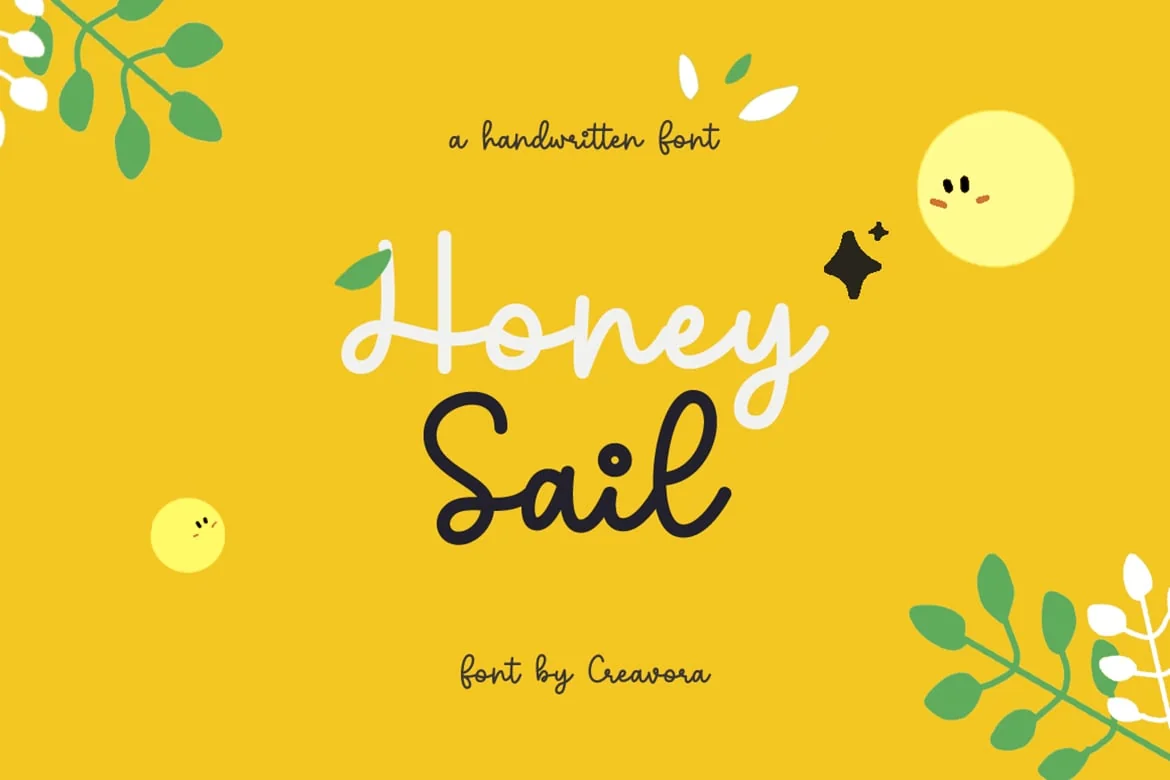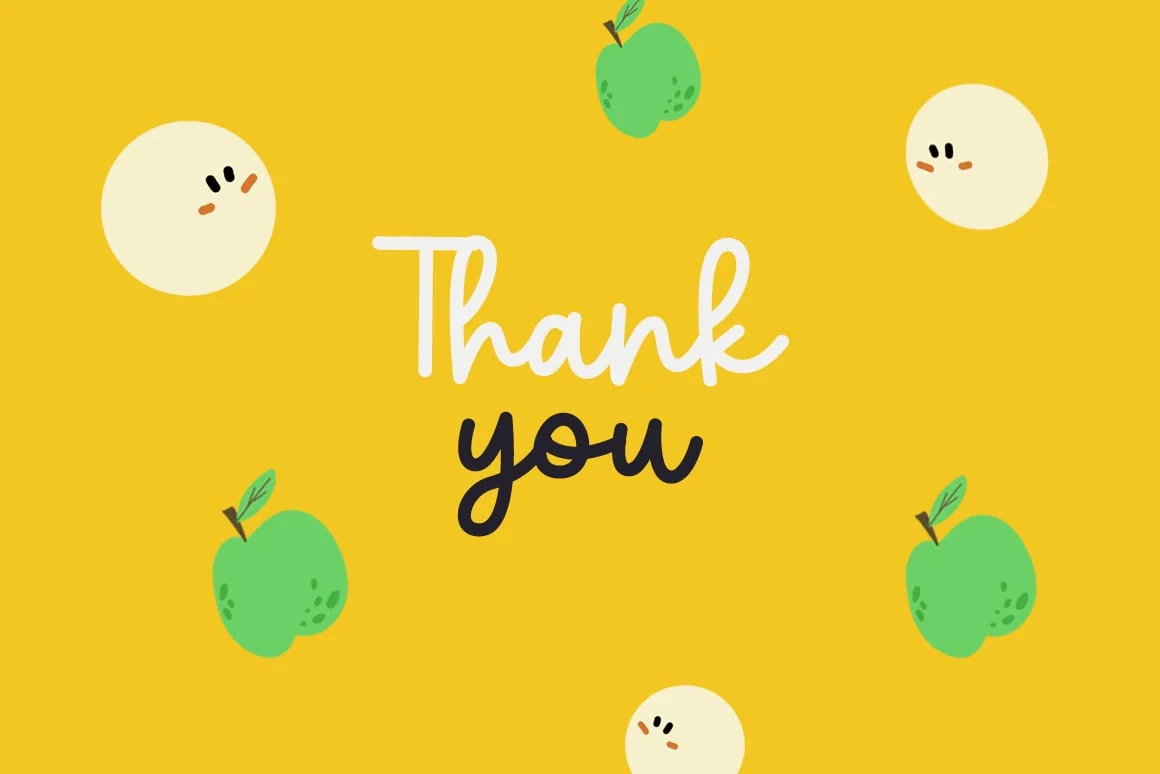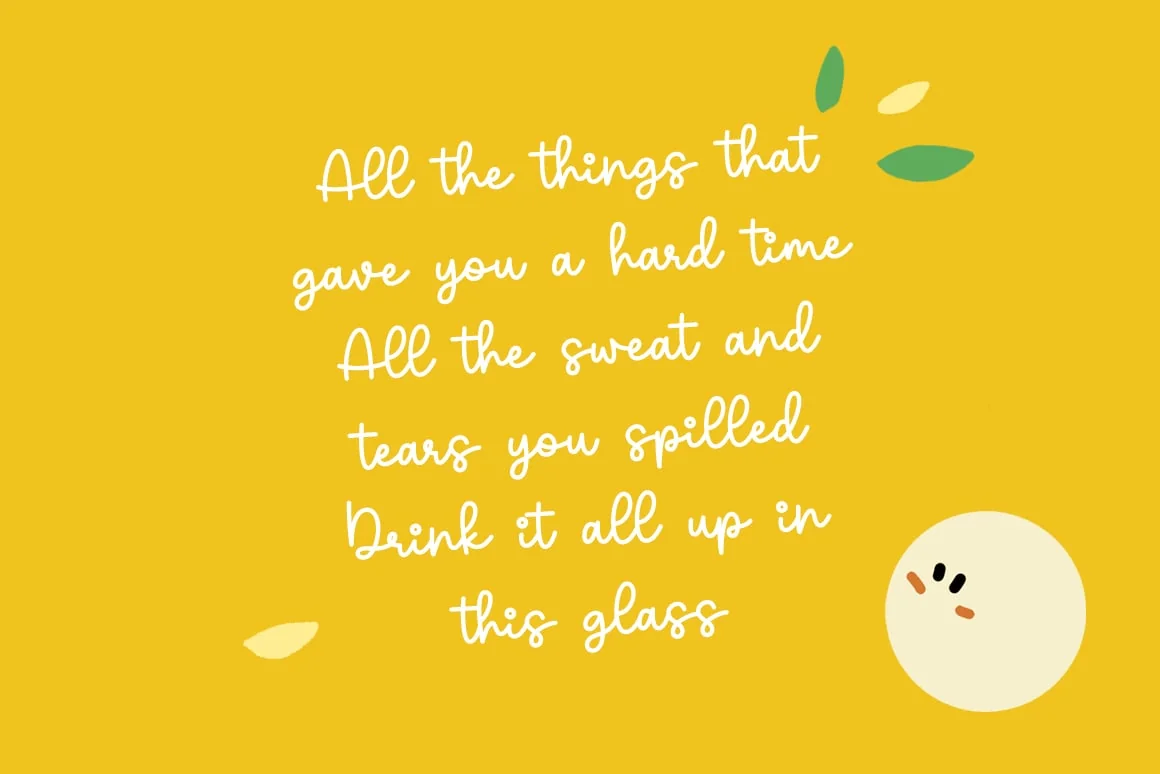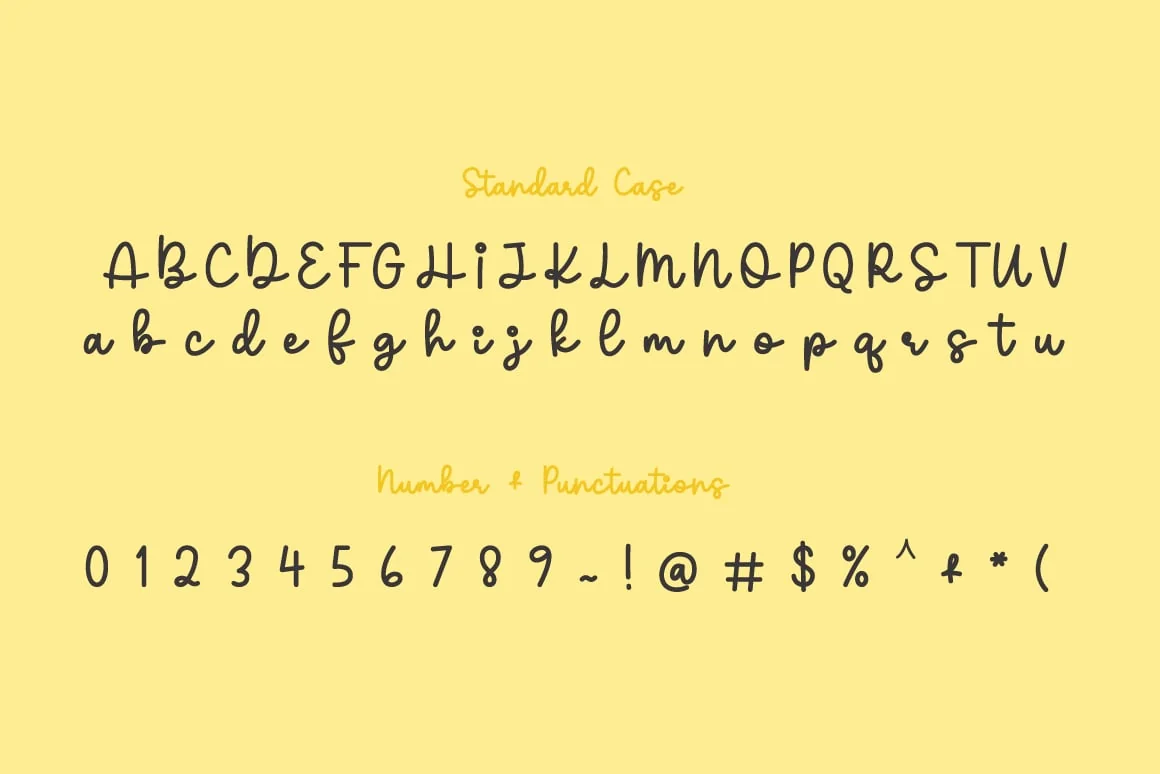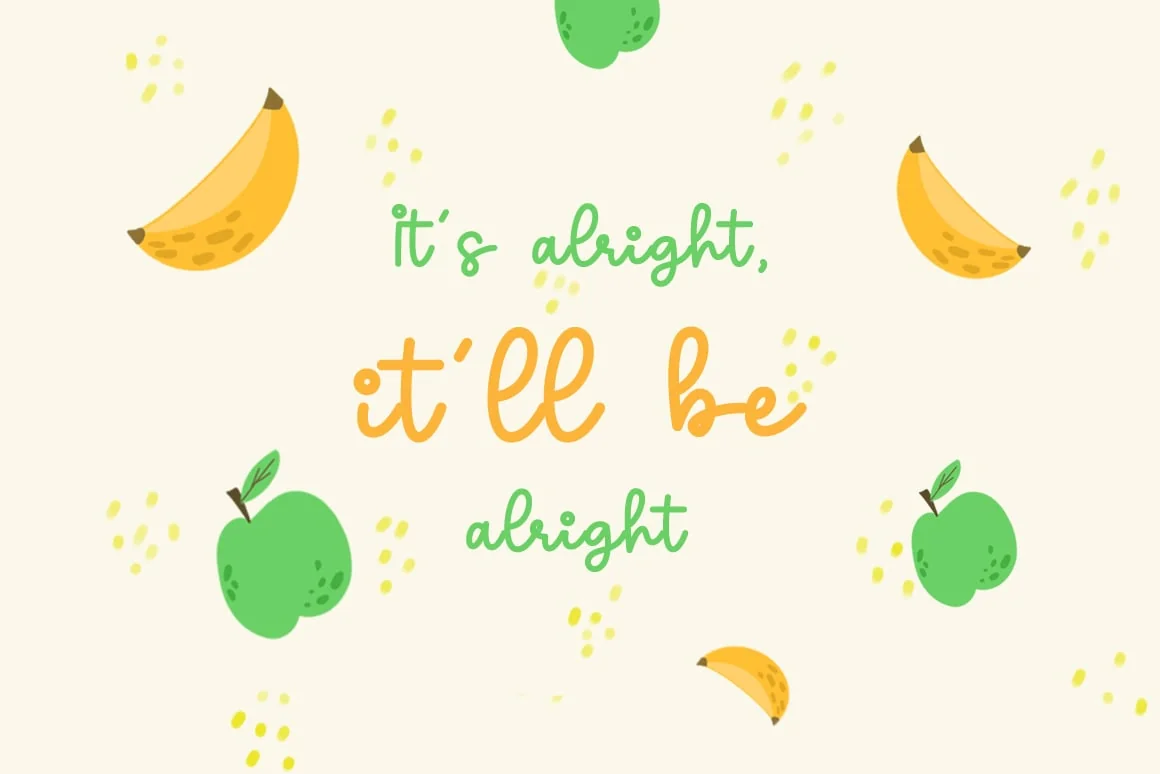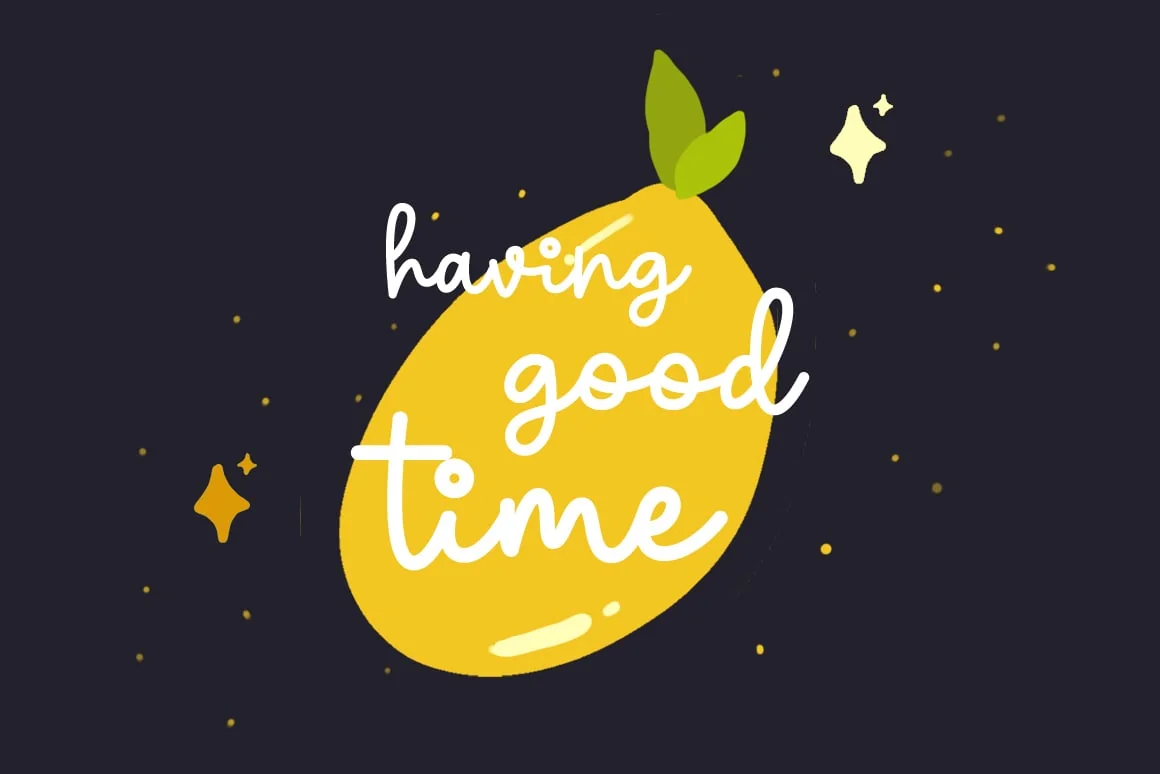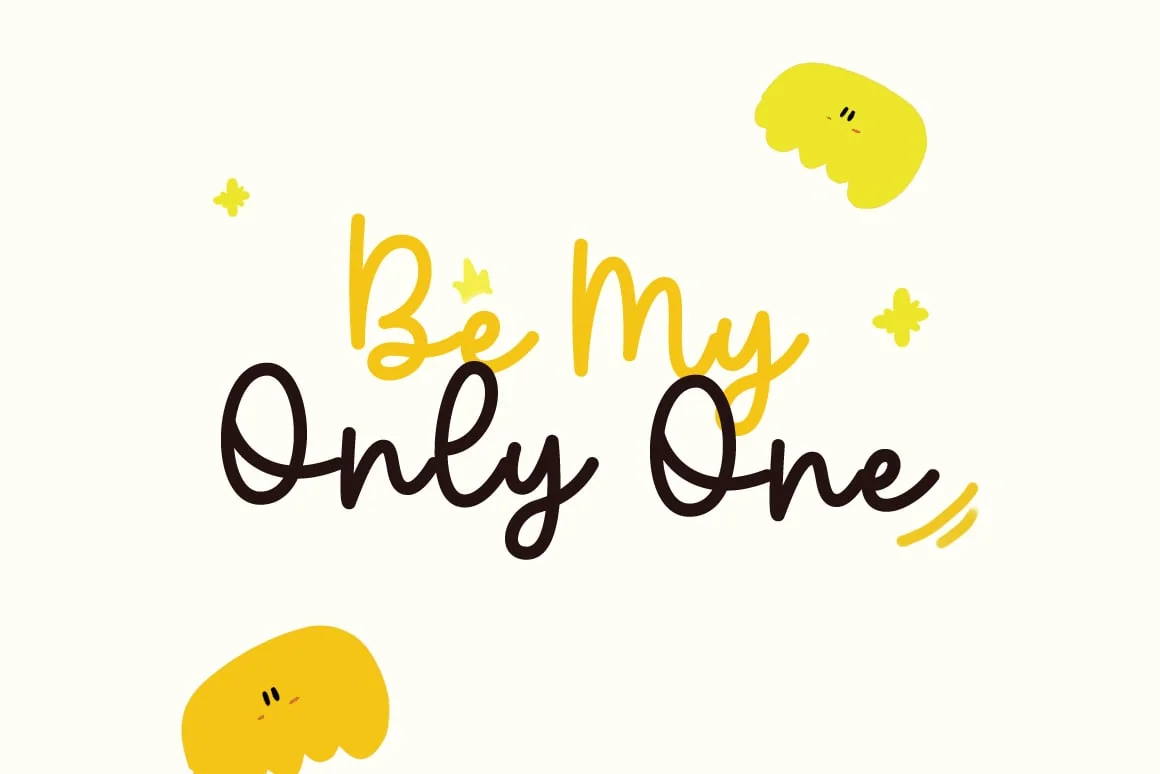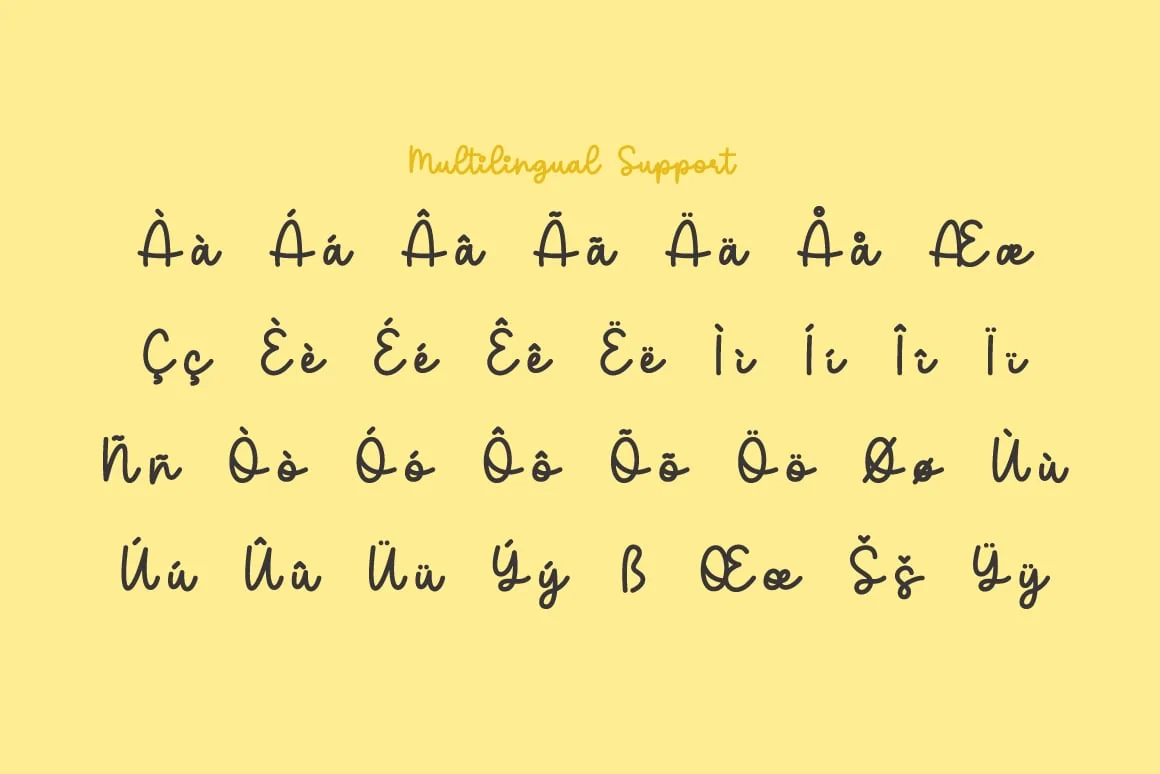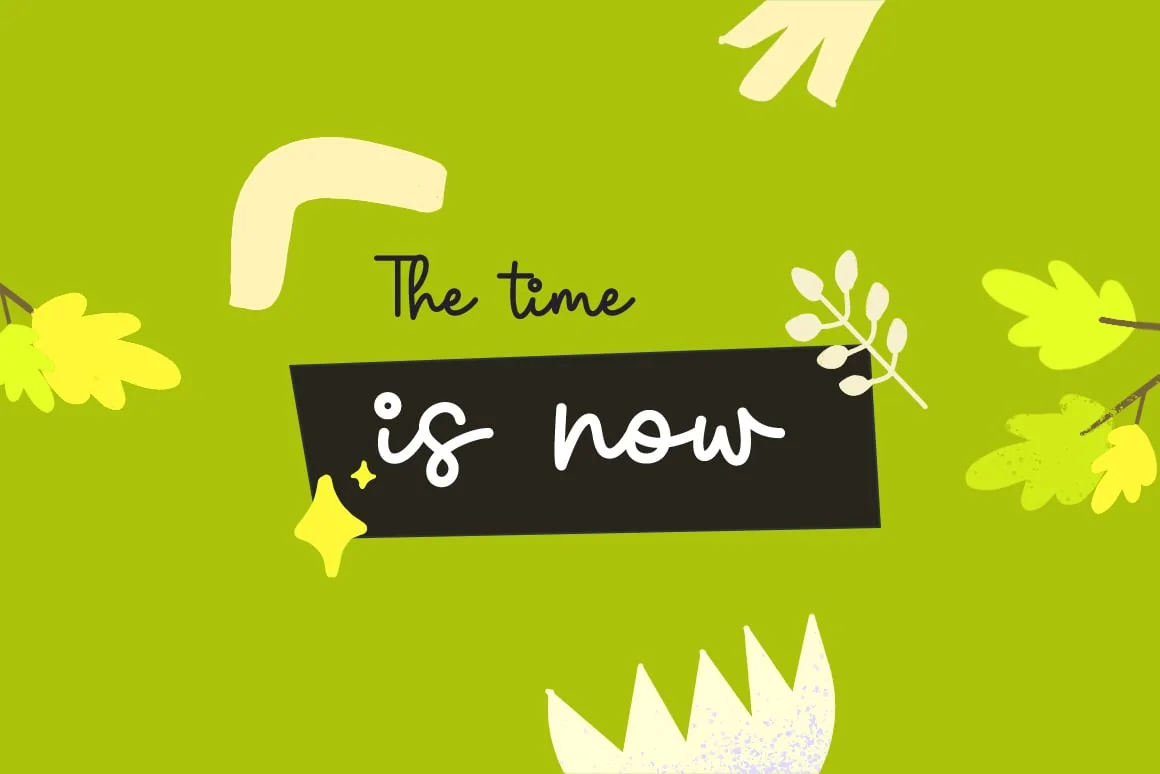
Honeysail – Monoline Cute Script Font
Introducing Monoline Cute Script Font
Introducing, Honey Sail handwritten font. This font will help you find an easier way to present your text in a more attractive look. It looks great on poster, typography, website banner, and so many more. Grab the font and take your projects to the next level.